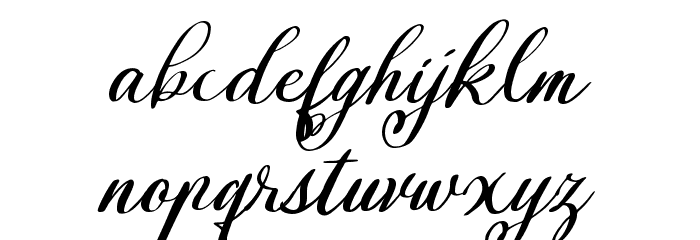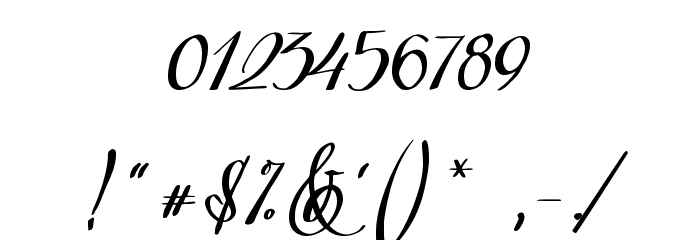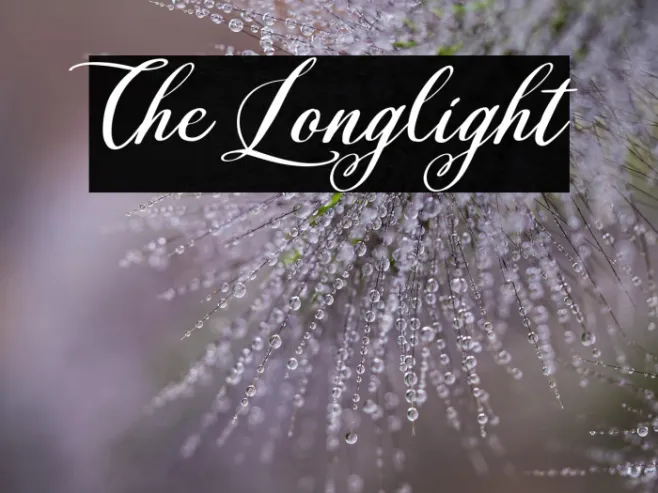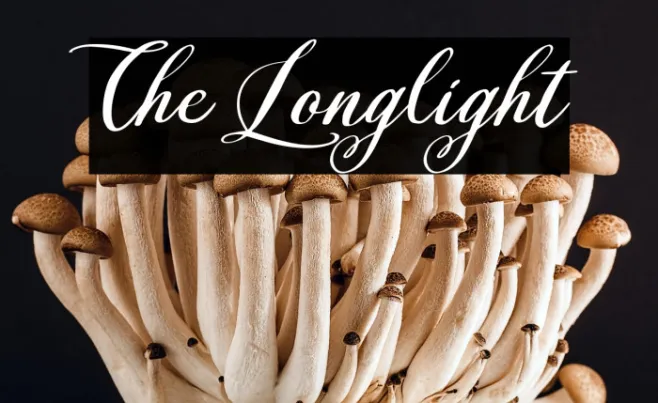
The Longlight Font
This elegant script font features a flowing, cursive style with intricate loops and flourishes. The characters are designed with a high level of detail, creating a sophisticated and artistic appearance. The uppercase letters are particularly ornate, with sweeping ascenders and descenders that add a touch of grandeur. The lowercase letters maintain a consistent flow, making the text appear connected and fluid. The numerals and special characters are crafted to match the overall aesthetic, ensuring a cohesive look across all elements. This font is perfect for projects that require a touch of elegance and style.
An elegant script font with intricate loops and flowing cursive style.
- Proposed Projects: Ideal for wedding invitations, luxury branding, elegant stationery, and artistic posters.
- Category: Script
- Character Spacing: Tight
- Overall Style: Elegant
- Use Case: Logos, Invitations, Decorative text